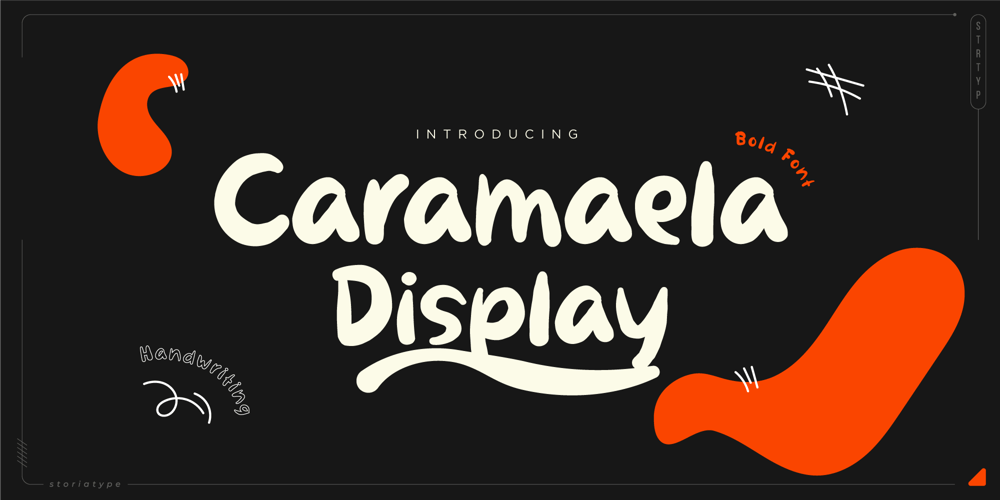
Caramaela Display Font Family was designed by Nano Tama and published by Storiatype. Caramaela Display contains 1 styles and family package options. Bold and Fun: CaramaelaDisplay is a bold and fun handwriting font that is perfect for adding a playful touch to your designs.Easy to Read: It has been designed with legibility in mind, making it easy to read even at small sizes.Perfect for Digital and Print Media: Perfect for use in digital media, such as websites, apps, and social media platforms, as well as in print media, such as brochures, flyers, and posters. This is a unique font that will make your designs stand out from the crowd.